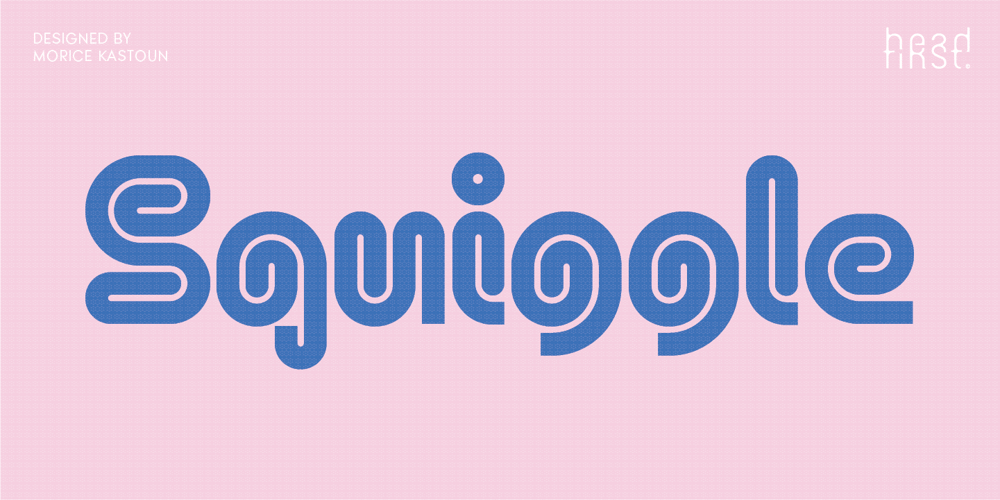
Squiggle Font Family was designed by Morice Kastoun and published by HeadFirst. Squiggle contains 2 styles and family package options. Designed by Morice KastounInspired by one of my childhood heroes, Squiggle is a characterful display typeface based on a linear form. Each character has been carefully crafted for maximum legibility.